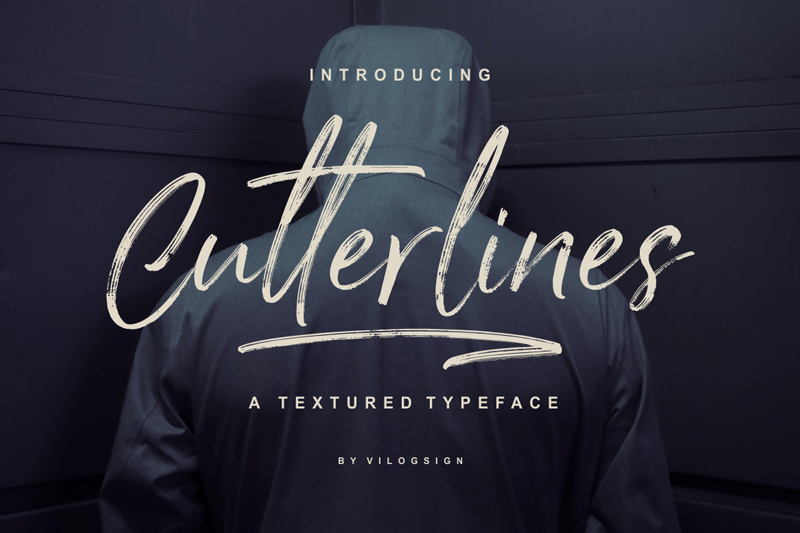
Hi,,, Introducing the new Cutterlines!!! Font and extras. a bold, rustic, textured, A teture typeface script font with 3 set of lowercase letters alternatives and 9 ligatures to complete your needs. With add extra brush vector and coffee vector make your job to be complete and easy. This font is very good with multilingual support. With built in Opentype features, this script comes to life as if you are writing it yourself. I make this font with lovely so make this font look natural, classic and elegant, very suitable to make a branding, magazine, fashion, quotes, logo, packaging, and other. Link to purchase full version and commercial license https://www.creativefabrica.com/product/cutterlines/ https://fontbundles.net/vilogsign/563763-cutterlines-a-textured-typeface-script-font visit my $1 deal : https://thehungryjpeg.com/product/3750618-cutterlines-a-textured-typeface-script-font NOTE : This demo font is for PERSONAL USE ONLY! But any donation are very appreciated. Paypal account for donation : https://PayPal.Me/vilogsign Hope you enjoy it! Thanks so much for checking out my portfolio! and feel free to drop me a message if you had any queries! |